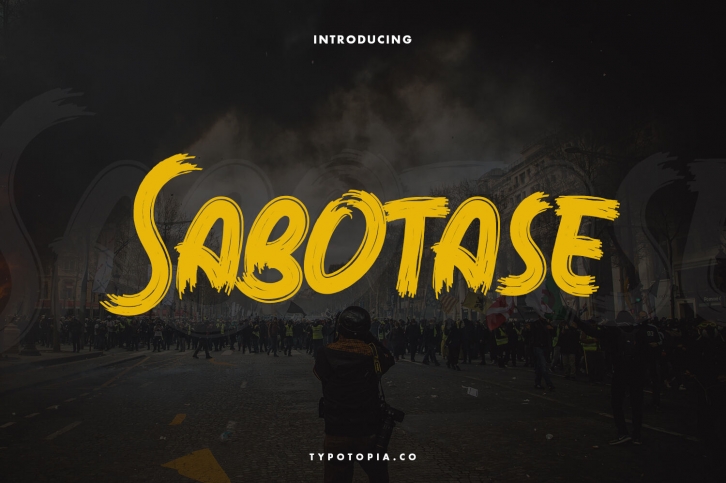
We're Proudly Introduce to all of you, **Sabotase, Creepy Font**. This Typeface Comes with 2 Style of Fonts that you can use.
**Sabotase** is the great choice for several purpose, it suitable for for headline, logotype, apparel, invitation, branding, packaging, advertising etc.